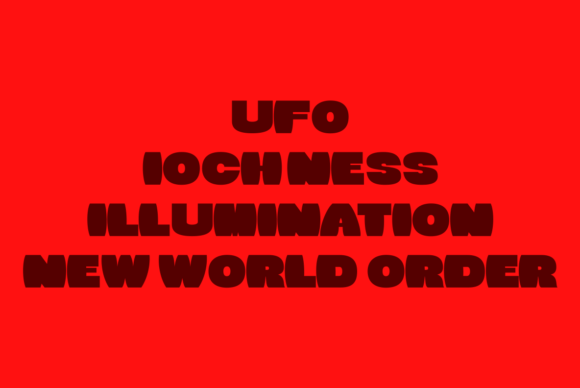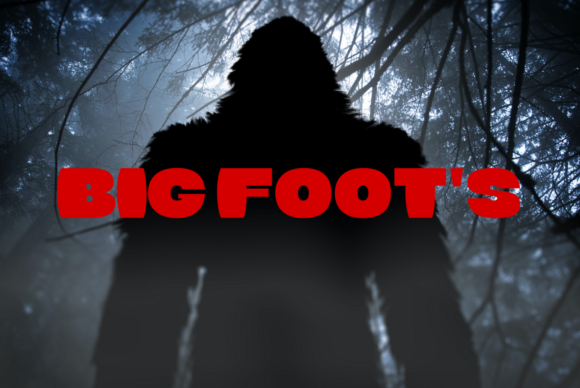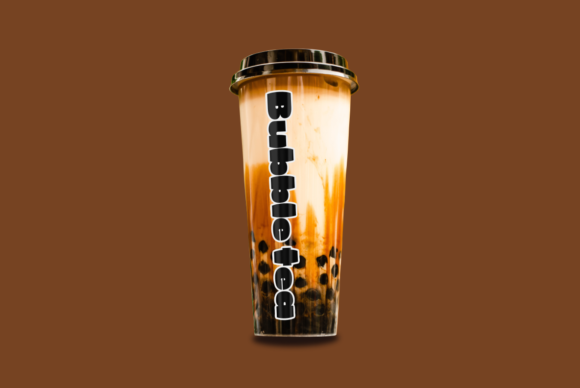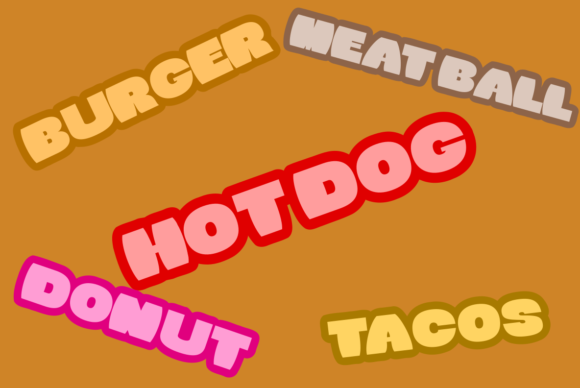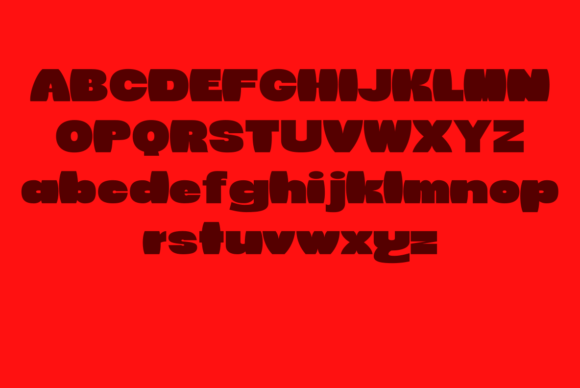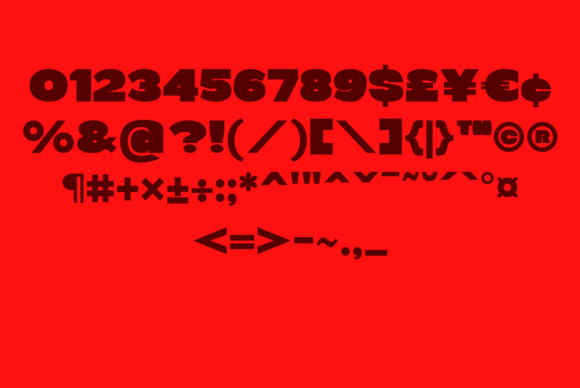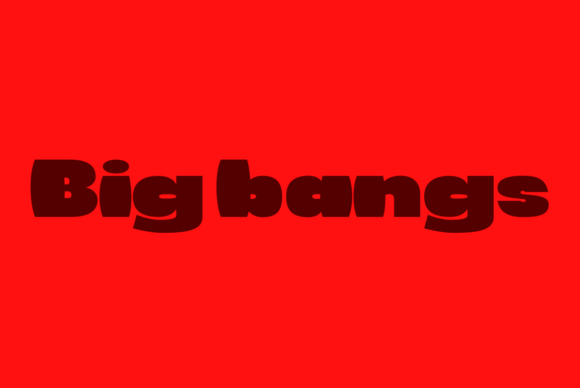
Introducing Big Bangs Font: The Ultimate Display Font for Fun and Creative Designs
Are you looking for a font that can add a touch of joy and playfulness to your designs? Look no further than Big Bangs Font! This fun and chunky lettered display font is perfect for a wide range of creative projects, from cartoon-related designs and children’s games to quotes, titles, brand names, book covers, posters, and more.
What Makes Big Bangs Font So Special?
Big Bangs Font is a unique and eye-catching font that is sure to grab attention. Its chunky and bold letters make it perfect for designs that require a playful and fun touch. The font is carefully crafted to ensure that it is highly legible, even at large sizes, making it ideal for titles, headings, and other display text.
Perfect for Cartoon-Related Designs and Children’s Games
If you’re working on a project related to cartoons or children’s games, Big Bangs Font is an excellent choice. The font’s playful and whimsical feel makes it perfect for designs that require a fun and youthful touch. Whether you’re creating a character logo, a game title, or a promotional poster, Big Bangs Font is sure to bring a smile to your audience’s faces.
Great for Quotes, Titles, and Brand Names
Big Bangs Font is not just limited to cartoon-related designs and children’s games. It’s also a great choice for quotes, titles, and brand names that require a touch of personality and flair. The font’s bold and chunky letters make it perfect for creating eye-catching headlines and titles that will grab attention and leave a lasting impression.
Ideal for Book Covers and Posters
If you’re an author or designer looking for a font to use on a book cover or poster, Big Bangs Font is an excellent choice. The font’s bold and playful feel makes it perfect for creating eye-catching titles and headlines that will stand out on bookshelves and in crowded poster displays.
Key Features of Big Bangs Font
- Fun and chunky lettered display font: Big Bangs Font is a unique and eye-catching font that is sure to add a touch of joy and playfulness to your designs.
- Highly legible: The font is carefully crafted to ensure that it is highly legible, even at large sizes, making it ideal for titles, headings, and other display text.
- Perfect for creative projects: Big Bangs Font is perfect for a wide range of creative projects, from cartoon-related designs and children’s games to quotes, titles, brand names, book covers, posters, and more.
Tips and Tricks for Getting the Most Out of Big Bangs Font
- Experiment with different sizes: Big Bangs Font looks great at large sizes, but it can also be used at smaller sizes to add a touch of personality to your designs.
- Pair with other fonts: Big Bangs Font pairs well with other fonts, such as sans-serif fonts or script fonts. Experiment with different font combinations to find the perfect look for your design.
- Use it sparingly: Big Bangs Font is a bold and eye-catching font, so use it sparingly to avoid overwhelming your design.
Big Bangs Font is a fun and chunky lettered display font that is perfect for a wide range of creative projects. Its bold and playful feel makes it ideal for designs that require a touch of joy and personality. Whether you’re a designer, crafter, or DIY enthusiast, Big Bangs Font is a great choice for adding a touch of whimsy and fun to your designs.